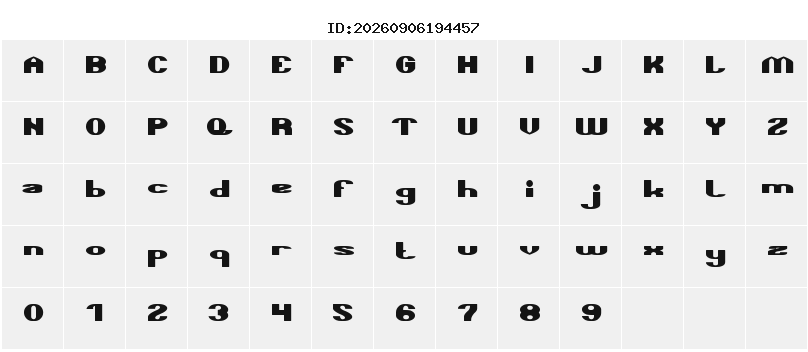
• Font Name: TAKE ME HOME
About TAKE ME HOME.ttf
TAKE ME HOME.ttf is a modern, elegant sans-serif font designed for ultimate readability and visual harmony. Perfect for branding, headlines, web design, and print materials.